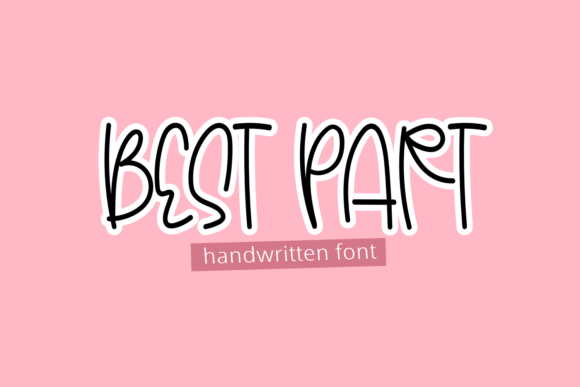
Discover the Joy of Handwritten Charm with Best Part Font
Have you ever found yourself scribbling down a quote or a message in a beautiful handwritten font, just because it makes you feel happy? That’s exactly what happened to me the other day, and it got me thinking about the magic of handwritten fonts. There’s something special about the imperfections and uniqueness of each letter that just makes it feel more personal and special.
Enter Best Part Font, a delightful handwritten font that’s perfect for adding a touch of whimsy to your craft designs. Whether you’re creating digital art, printables, or even just a quick note to a friend, Best Part Font is the perfect companion to help you add some personality to your work. Its simplicity and ease of use make it a valuable tool for designers of all levels.
Best Part Font Key Features
- Font Family: The Best Part Font is a unique, custom-designed font family consisting of multiple styles.
- Unique Characteristics: Features a mix of modern and classic elements, making it perfect for a wide range of design applications.
- Character Count: Includes a comprehensive set of characters, including uppercase and lowercase letters, numbers, and special symbols.
Best Part Font Review
I recently had the chance to work with the “Best Part Font” and here’s my honest take.
- Clean and modern aesthetic, making it perfect for contemporary designs
- Large character set, ensuring you’ll find the perfect glyph for your project
- Well-documented, easy to use, and includes a comprehensive user manual
- Not ideal for projects requiring bold, condensed, or extended font styles
- Some users may find the font too light or inconsistent in certain weights
- No advanced features like ligatures, swashes, or alternate glyphs
Overall, I’d say the “Best Part Font” is a solid choice for everyday use. While it may not excel in every area, its clean design and ease of use make it a reliable option for most projects. If you’re looking for a versatile font that won’t break the bank, the “Best Part Font” is worth considering.
Tips for Getting the Most Out of Best Part Font
Best Part Font is a versatile font that can be used for various design projects. To get the most out of it, use it for headings and titles to add a touch of elegance and sophistication. You can also pair it with other fonts to create a unique and visually appealing design.
Best Part Font is commonly used for:
- Wedding and event branding
- Stationery and letterhead
Alternatives to Best Part Font for Designers
Playfair Display is a luxurious and elegant font ideal for headings and titles. It features intricate details and ornate flourishes, making it perfect for high-end branding and luxury products.
Compared to Best Part Font, Playfair Display is more ornate and luxurious, making it better suited for premium products and brands. While Best Part Font is more versatile, Playfair Display is ideal for specific niches that require a touch of sophistication.
Montserrat is a modern and sleek font designed for urban environments. It’s highly legible and features a geometric aesthetic, making it perfect for digital products, apps, and websites.
Compared to Best Part Font, Montserrat is more modern and digital-friendly, making it better suited for products that require a clean and minimalist aesthetic. While Best Part Font is more versatile, Montserrat is ideal for digital products and urban environments.
Great Vibes is a modern and elegant font featuring a unique blend of script and sans-serif elements. It’s perfect for branding, logos, and titles that require a touch of sophistication and elegance.
Compared to Best Part Font, Great Vibes is more elegant and sophisticated, making it better suited for high-end branding and luxury products. While Best Part Font is more versatile, Great Vibes is ideal for specific niches that require a touch of refinement.
What are the technical details of Best Part Font?